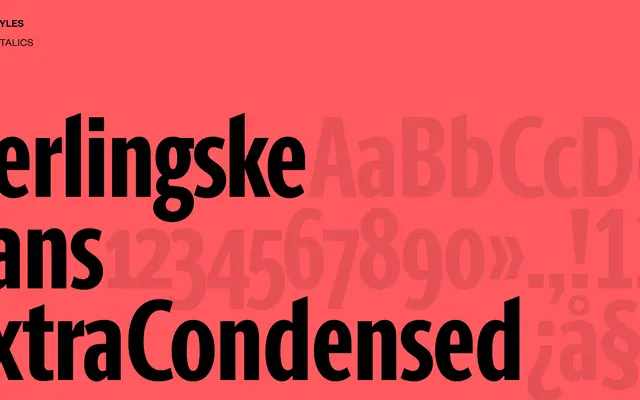
Berlingske Sans Extra Condensed
An extra condensed grotesque sans from Playtype, drawn for tight editorial settings and headline work.
Part of the broader Berlingske family, this extra condensed cut is built for situations where space is at a premium, such as newspaper headlines or compact display lines. The narrow proportion and grotesque structure give it a workhorse quality suited to editorial hierarchies. The page copy hints at a typeface with enough character to carry long-form narrative contexts as well.
The name and extra condensed descriptor suggest a narrow grotesque sans, consistent with the Berlingske family associated with Playtype's editorial work for Danish media.